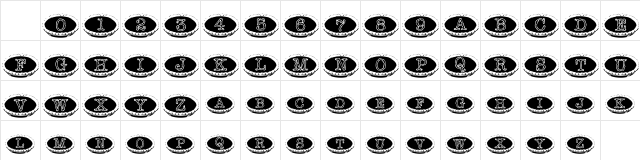
Complete 101 Punkin Pie Regular glyph index. Displaying only characters natively supported by 101 Punkin Pie Regular font.
101 Punkin Pie is a composed and adaptable typeface that performs quietly and consistently across a wide range of design contexts.